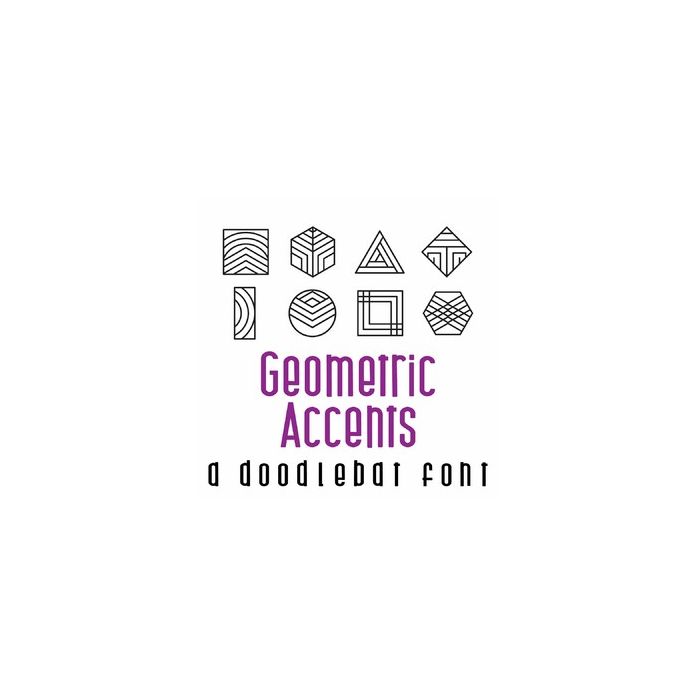
Geometric Accents Doodlebat Font
This fun doodlebat font features 26 fun geometric designs. Perfect for cards, gifts, decor, crafts, scrap book pages, planner stickers and more!